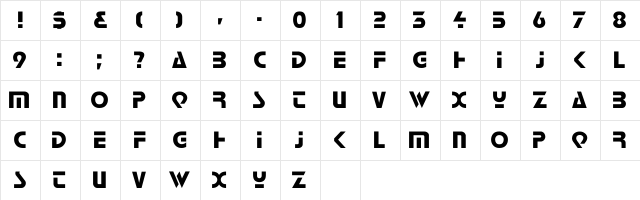
Hal2000 Regular
Design Context for Hal2000
Hal2000 is a composed and adaptable typeface that performs quietly and consistently across a wide range of design contexts.
Pro Tip: Use Hal2000 in both headline and body roles to test its range before committing to a single application.